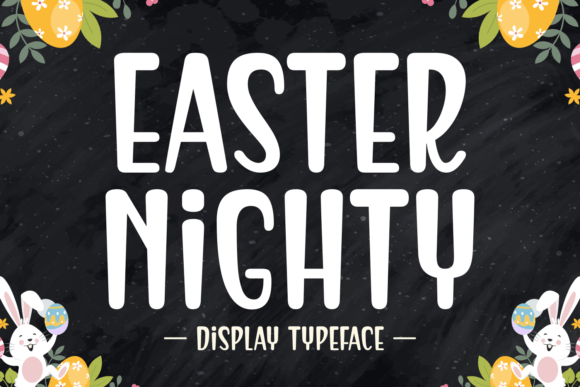
Easter Nighty Font: Elevate Your Designs with a Modern Display Font
Easter Nighty Font is an attractive and modern display font designed to make a lasting impact. Its unique blend of smooth curves, distinctive shapes, and bold lines gives it a contemporary feel that’s perfect for designers looking to add a touch of sophistication to their projects. In this article, we’ll dive into the features and benefits of Easter Nighty Font, exploring how it can elevate your designs and help you stand out from the crowd.
The Features of Easter Nighty Font
Easter Nighty Font boasts a range of features that make it an exceptional choice for designers. Some of its key characteristics include:
- Smooth Curves: Easter Nighty Font features smooth, flowing curves that add a touch of elegance to any design.
- Unique Shapes: The font’s distinctive shapes and bold lines give it a modern feel that’s perfect for making a statement.
- Tall X-Height: Easter Nighty Font’s tall x-height and wide proportions add a sense of sophistication and grandeur to any text.
- Bold Lines: The font’s bold lines and confident strokes make it perfect for headlines, titles, and other display text.
The Benefits of Easter Nighty Font
Easter Nighty Font offers a range of benefits for designers, including:
- Attention-Grabbing: Easter Nighty Font is designed to grab attention and make a lasting impact. Its unique features and bold lines ensure that your text stands out from the crowd.
- Elegant and Sophisticated: The font’s smooth curves and tall x-height give it an air of elegance and sophistication, making it perfect for high-end designs and luxury brands.
- Versatile: Easter Nighty Font is a versatile font that can be used in a range of design projects, from posters and flyers to logos and branding.
- Easy to Read: Despite its bold and modern features, Easter Nighty Font is easy to read, even at smaller sizes.
How to Use Easter Nighty Font
Easter Nighty Font is perfect for a range of design projects, including:
- Headlines and Titles: Use Easter Nighty Font to create bold and eye-catching headlines and titles that grab attention.
- Posters and Flyers: The font’s bold lines and confident strokes make it perfect for posters and flyers that need to stand out.
- Logos and Branding: Easter Nighty Font’s unique features and elegant feel make it a great choice for logos and branding projects.
- Signage and Displays: The font’s tall x-height and wide proportions make it perfect for signage and displays that need to be easy to read from a distance.
Tips for Getting the Most Out of Easter Nighty Font
To get the most out of Easter Nighty Font, follow these tips:
- Use it Sparingly: Easter Nighty Font is a bold and attention-grabbing font. Use it sparingly to avoid overwhelming your design.
- Experiment with Colors: The font’s bold lines and confident strokes make it perfect for experimenting with different colors and textures.
- Pair it with Other Fonts: Easter Nighty Font pairs well with a range of other fonts. Experiment with different combinations to find the perfect look for your design.
- Pay Attention to Kerning: As with any font, pay attention to kerning to ensure that your text looks professional and polished.
Easter Nighty Font is a modern and attractive display font that’s perfect for making a lasting impact. Its unique features, elegant feel, and bold lines make it a great choice for designers looking to add a touch of sophistication to their projects. With its versatility, attention-grabbing features, and ease of use, Easter Nighty Font is a must-have for any designer looking to elevate their designs.
- What is Easter Nighty Font? Easter Nighty Font is a modern and attractive display font designed for making a lasting impact.
- What are the key features of Easter Nighty Font? Easter Nighty Font features smooth curves, unique shapes, bold lines, tall x-height, and wide proportions.
- What are the benefits of using Easter Nighty Font? Easter Nighty Font is attention-grabbing, elegant and sophisticated, versatile, and easy to read.
- How can I use Easter Nighty Font? Easter Nighty Font is perfect for headlines and titles, posters and flyers, logos and branding, and signage and displays.